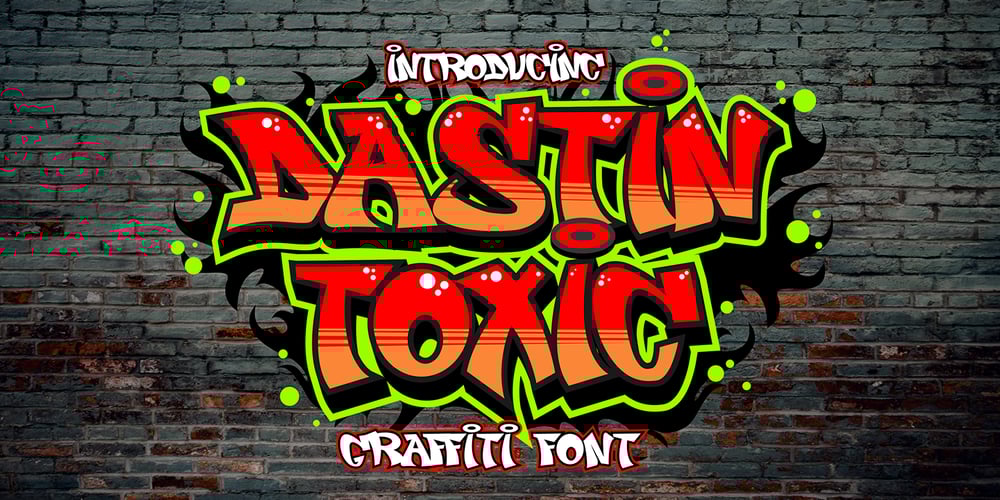
Dastin toxic Graffiti Font Family was designed by Sipanji and published by Sipanji21. Dastin toxic Graffiti contains 1 styles and family package options. Dastin Toxic Graffiti is a spectacular display font, It will elevate a wide range of design projects to the highest level, be it branding, headings, wall art illustration, apparel, labels, and much more!